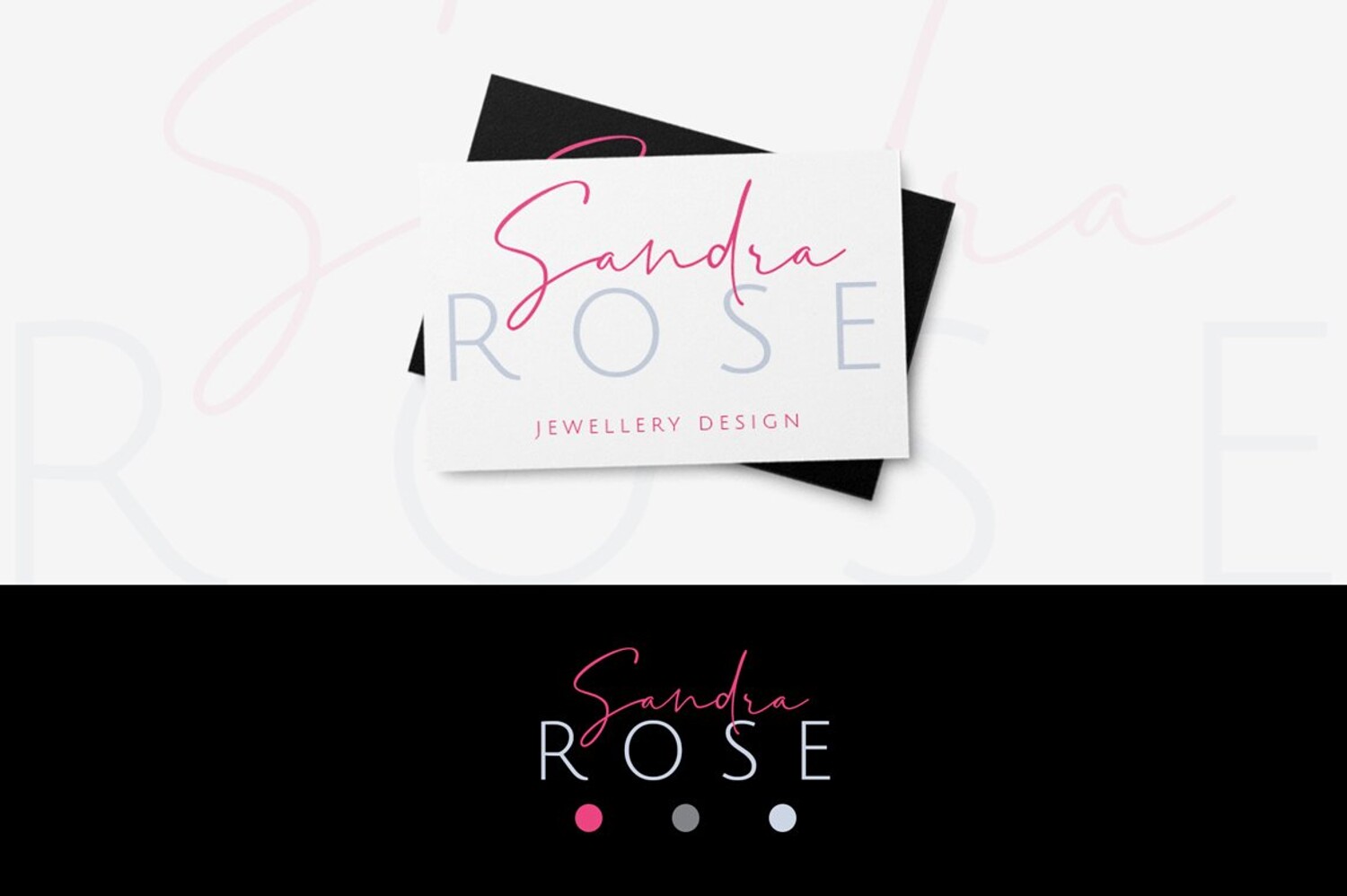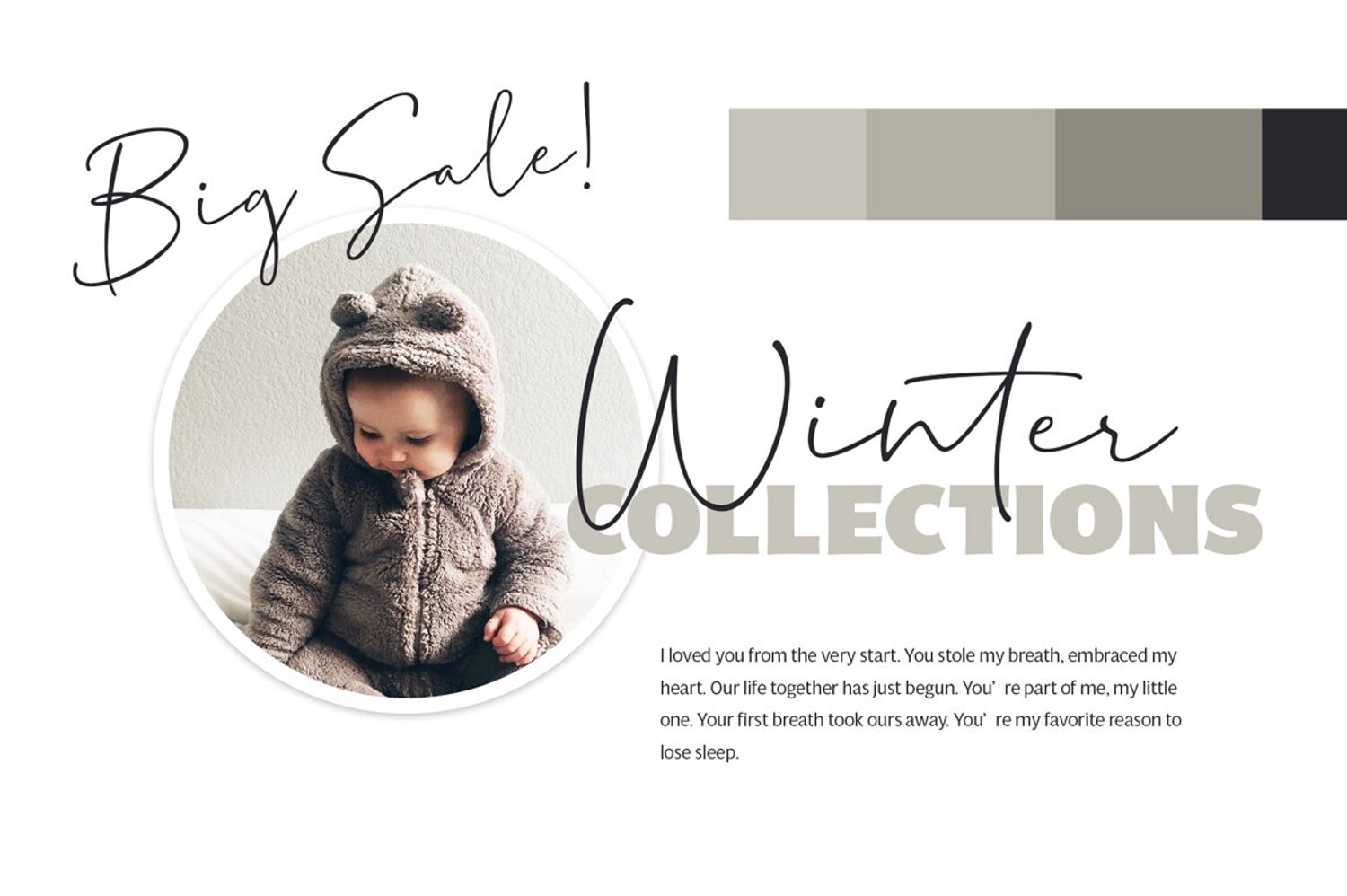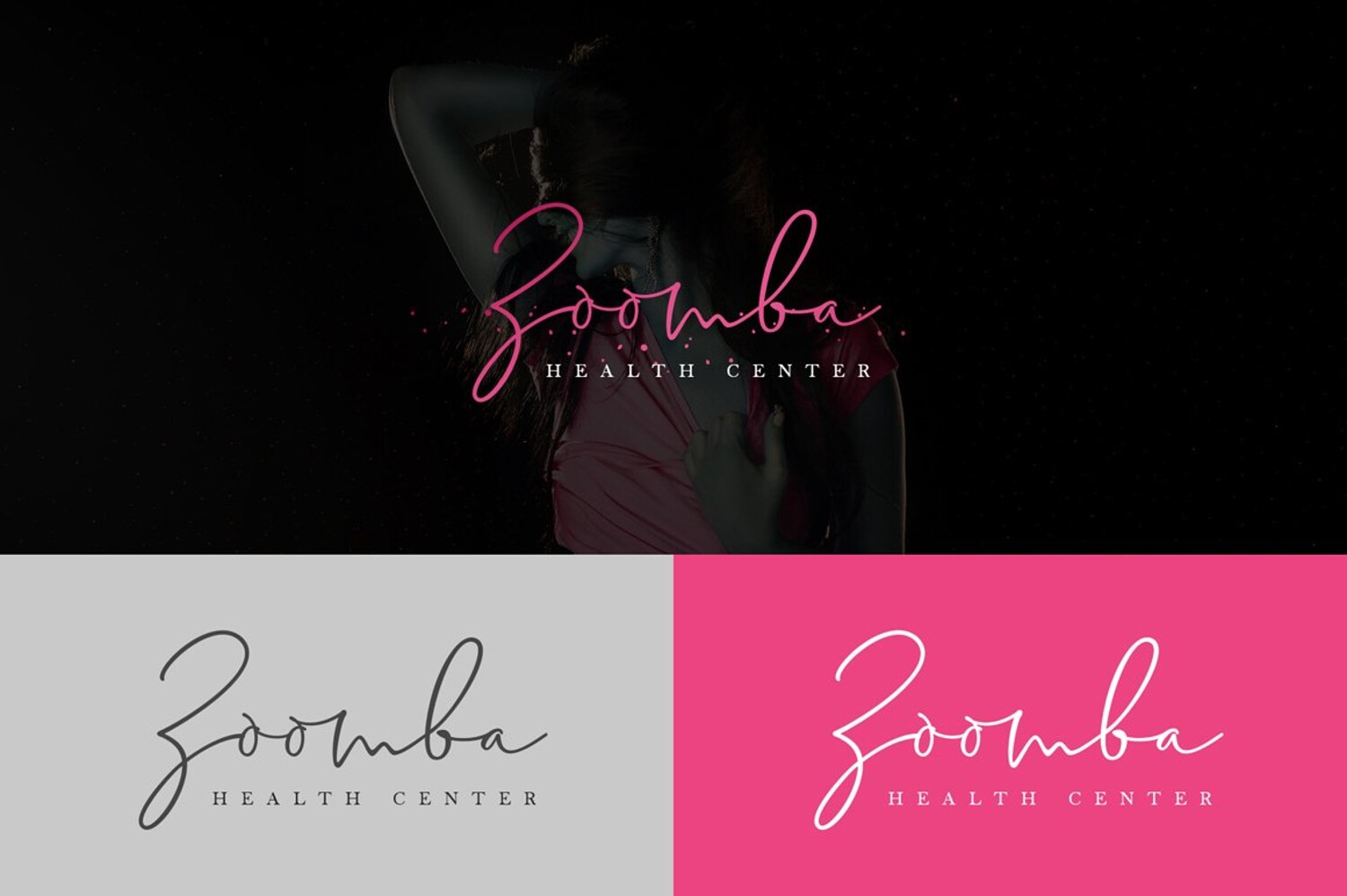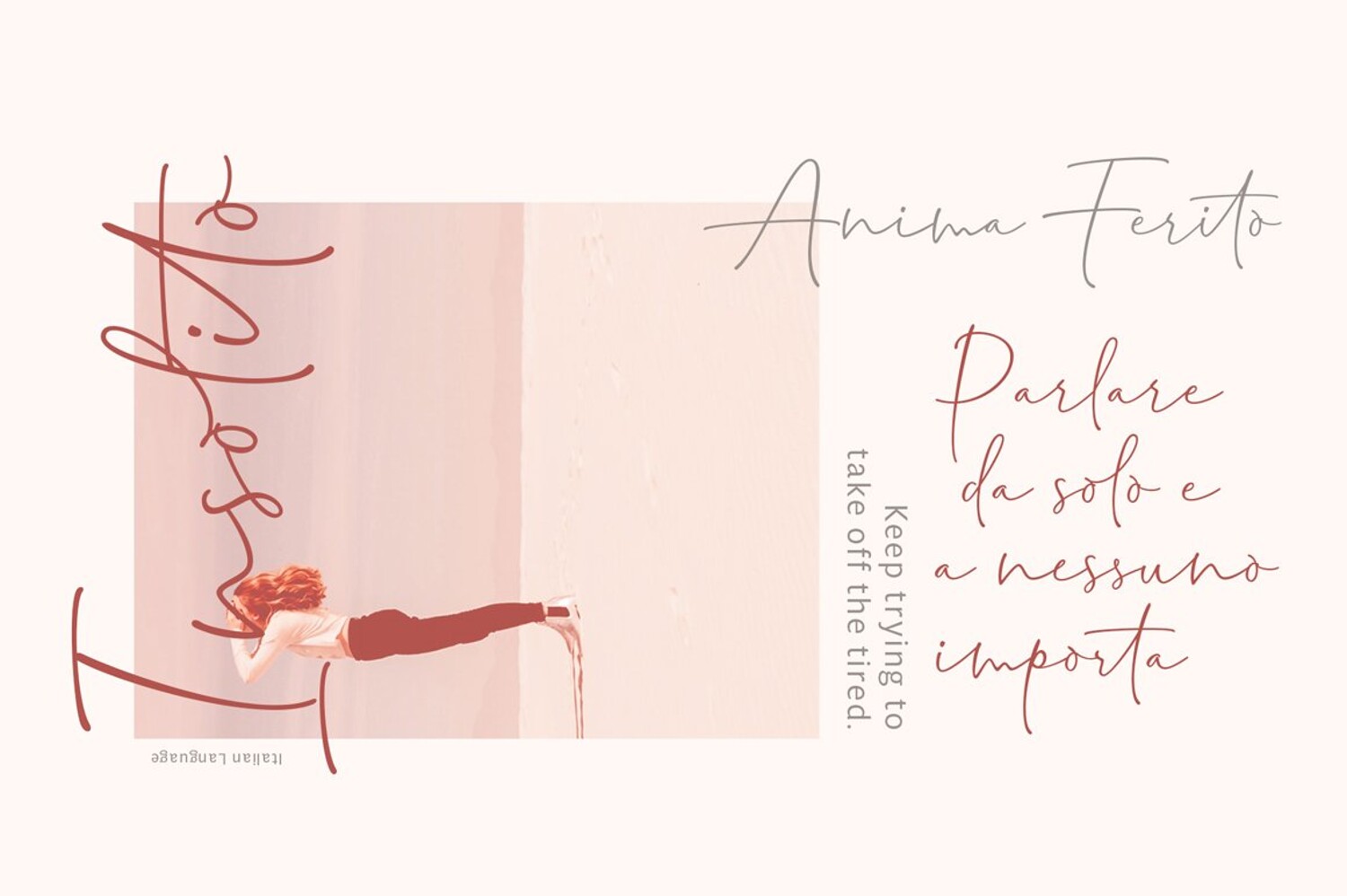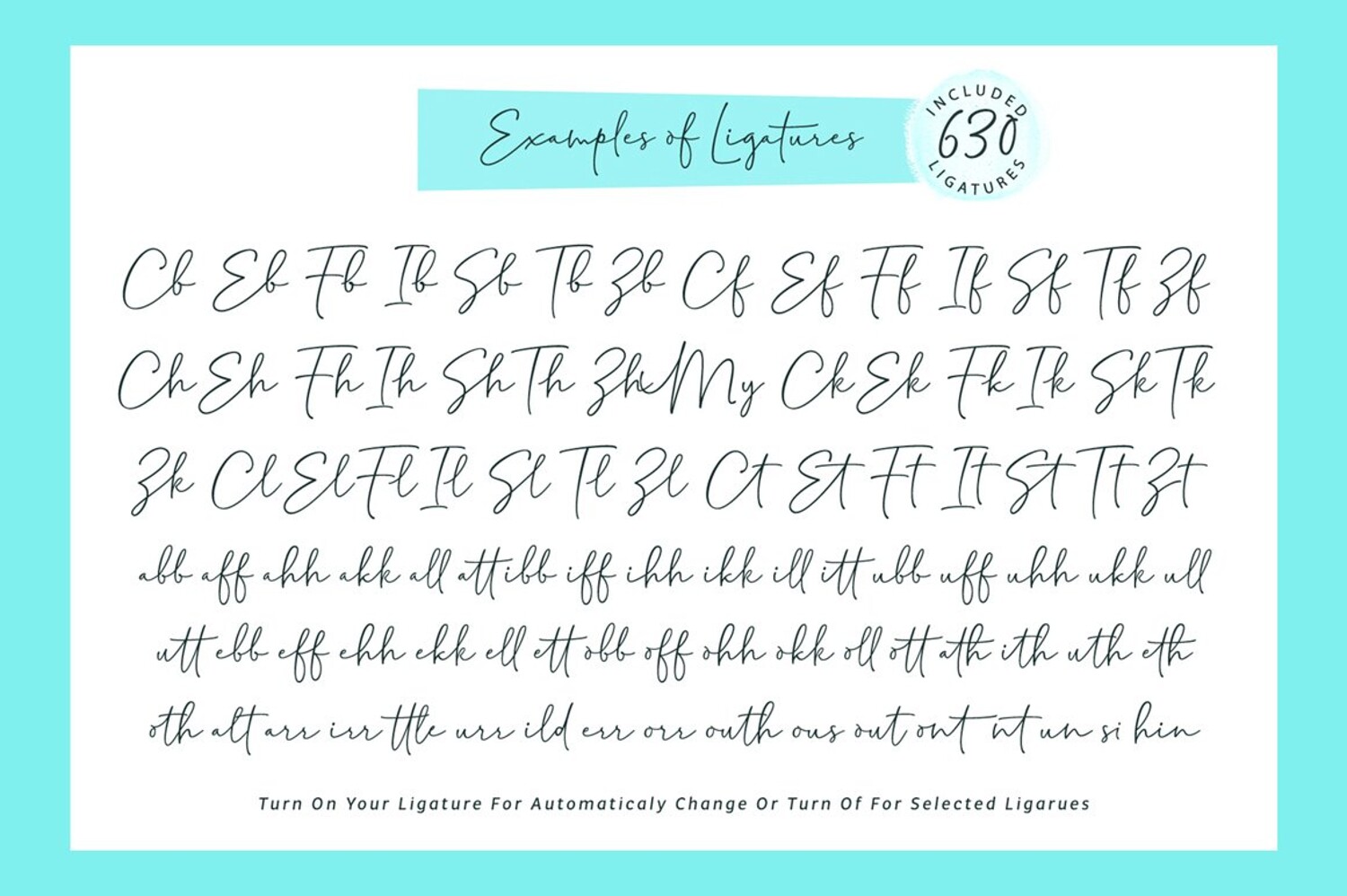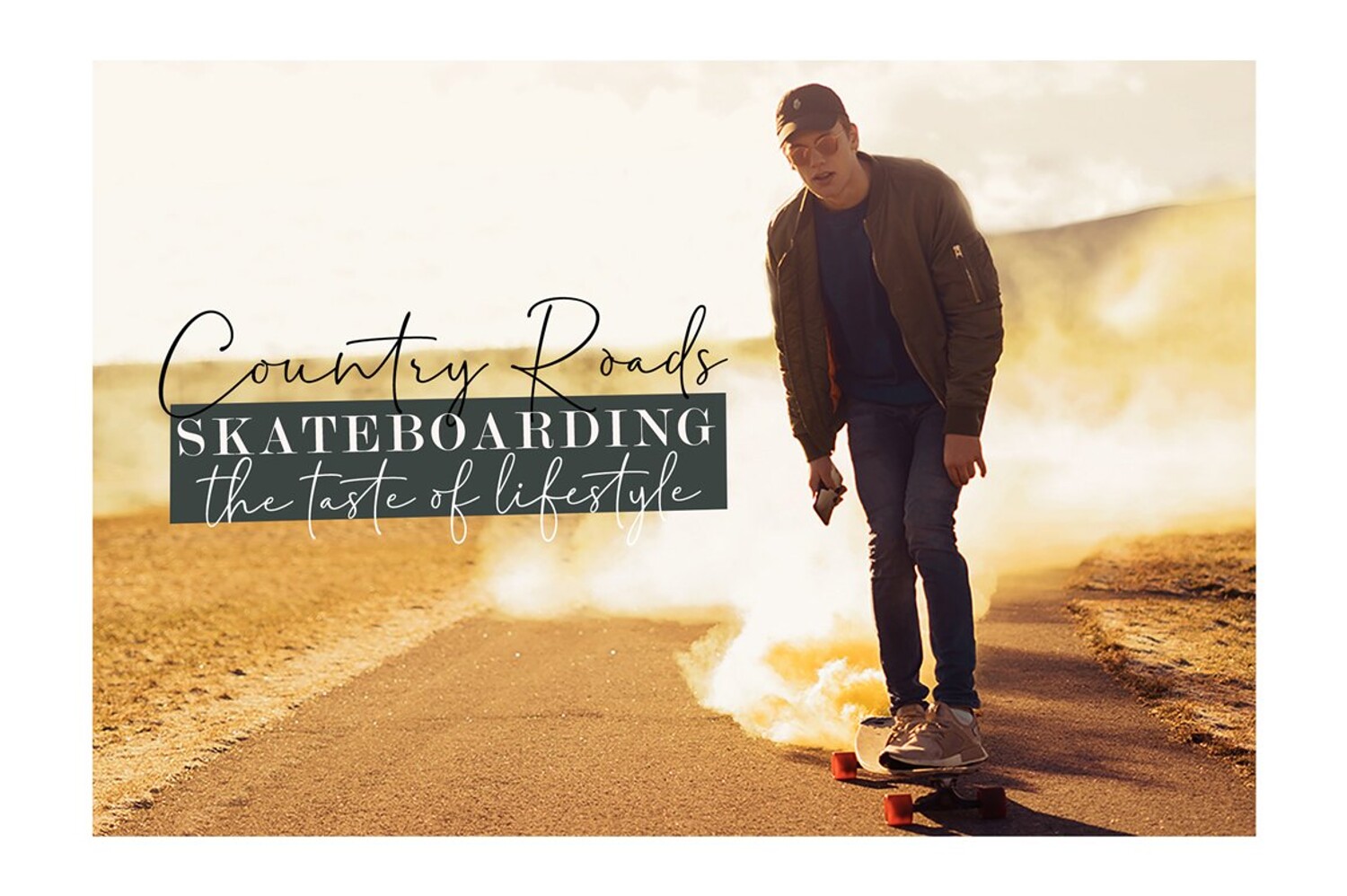
Jendral Writing Fonts
Introducing a "Jendral Writing Pro" font. A Latin Pro, writinable and super natural handwriting script fonts. Inspired by nowdays hand lettered trend. This font look very close like natural handwritten on modern script calligraphy nuance. With including over 630 ligatures. Meaning, 94 special ligatures and 536 standard ligatures, and a set of lowercase alternates. Ligatures and Alternate glyphs encoded with PUA encoding. With Opentype features, this font comes to life like you are writing there. In Adobe software, You ca turn off your "opentype" feature to accesses random/selected ligatures. Files included: Jendral Writing Pro OTF Jendral Writing Pro Swashes This font support Latin Pro accent letters of Central Europa, Western (À Â Æ È Ë ã ä æ è...)